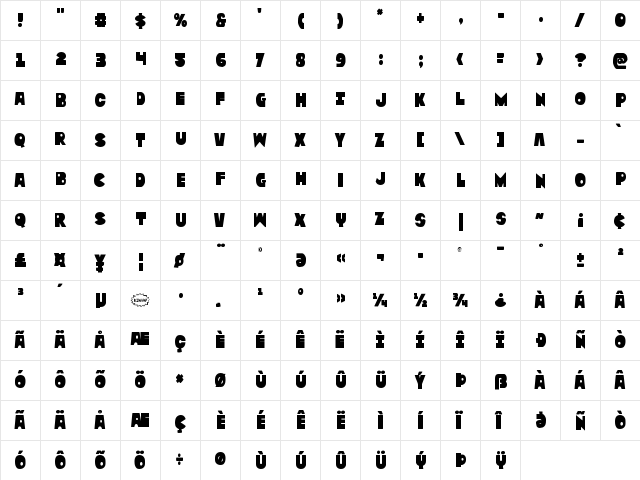
Zounderkite Condensed Condensed
Design Context for Zounderkite Condensed Typeface
Zounderkite Condensed offers clean, dependable letterforms without strong stylistic allegiance, making it a practical choice for designers who need flexibility. Its narrow stance lets it pack a punch even in space-constrained designs.